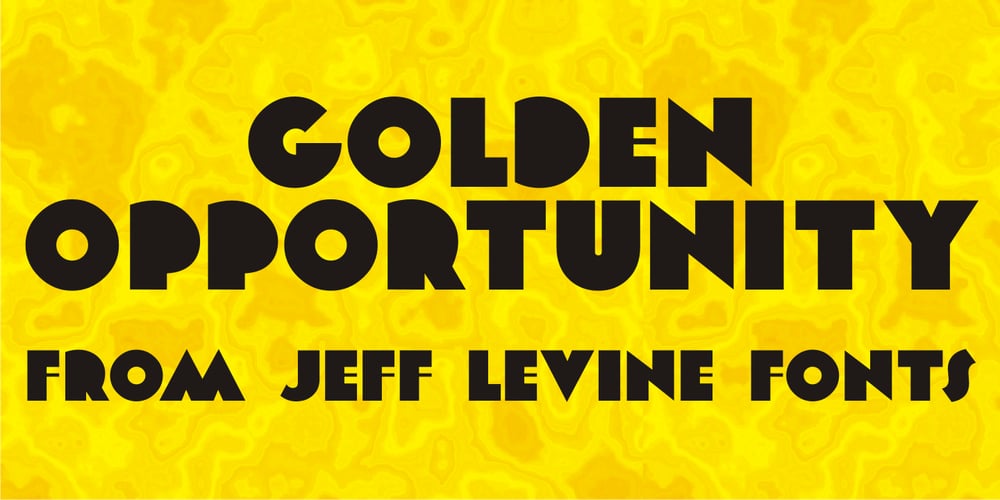
Golden Opportunity JNL Font Family was designed by Jeff Levine and published by Jeff Levine. Golden Opportunity JNL contains 1 styles and family package options. The cover of vintage sheet music for “With Plenty of Money and You (The Gold Diggers’ Lullaby)” from the Warner Brothers musical “Gold Diggers of 1937” had the movie title hand-lettered in a classic Art Deco style. Bold, brash and totally fun, this became the model for Golden Opportunity JNL.